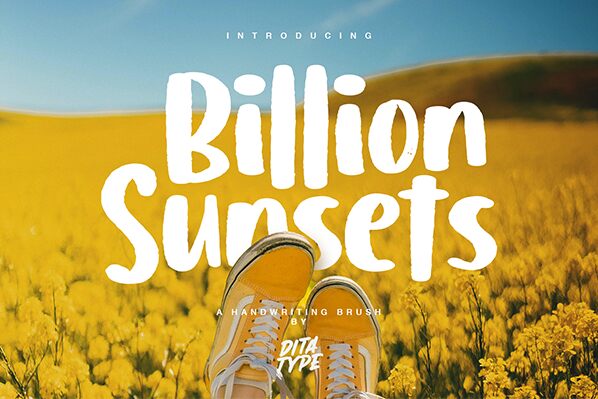
Billion Sunsets
Billion Sunsets font, designed by Nathatype, embodies a captivating and expressive essence with its smooth brush style and bold character. Its dynamic strokes convey a sense of artistry and warmth, making it perfect for projects that aim to evoke emotion and creativity. The generous flow of the letters showcases an inviting personality, while the bolder elements grab attention effortlessly.
This font shines in branding, posters, and social media graphics where visual impact is crucial. Whether used in eye-catching headlines or playful logos, Billion Sunsets enhances any design with its vibrant charm, perfect for capturing the essence of summer vibes or artistic endeavors. Ideal for those looking to make a statement with flair and individuality.